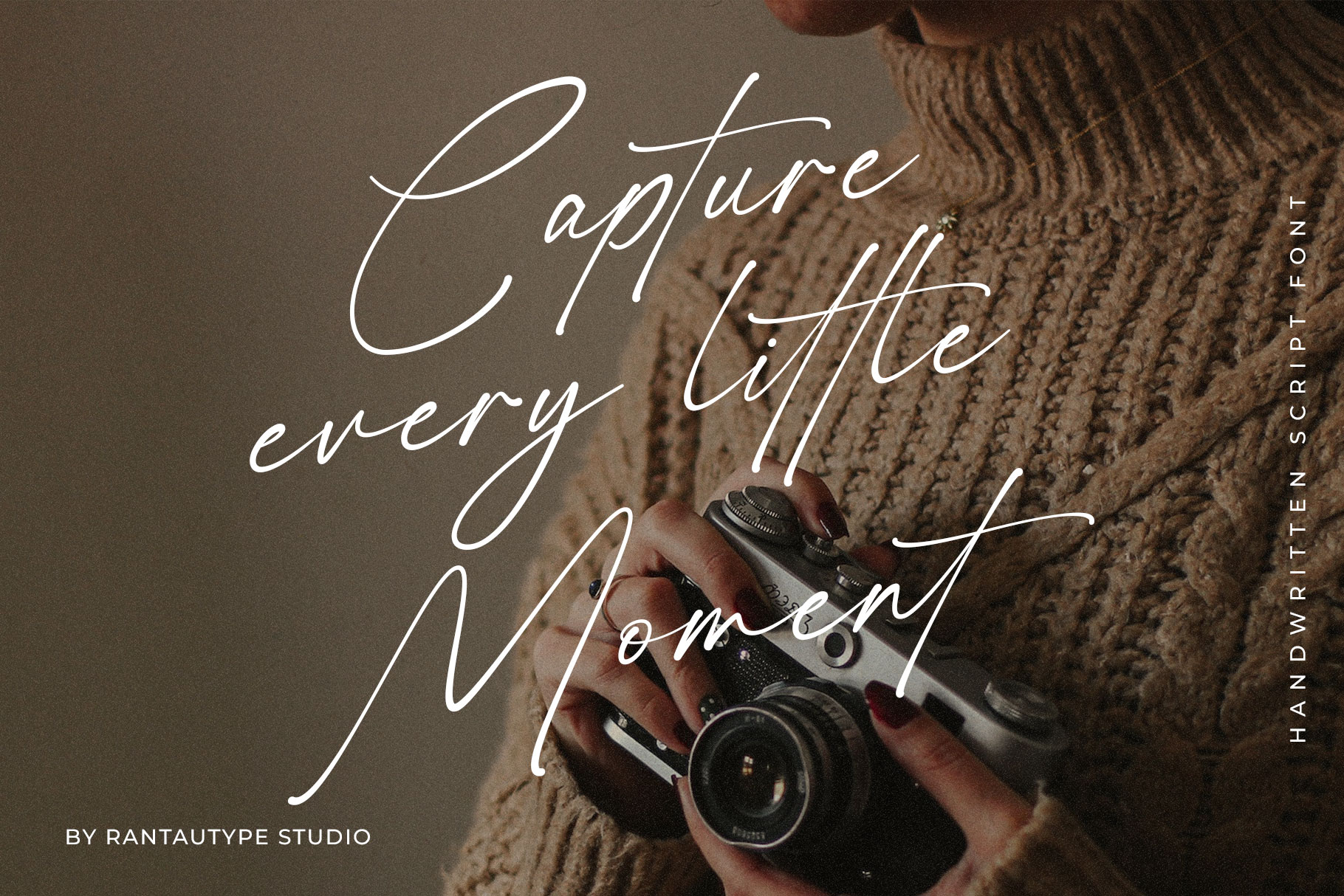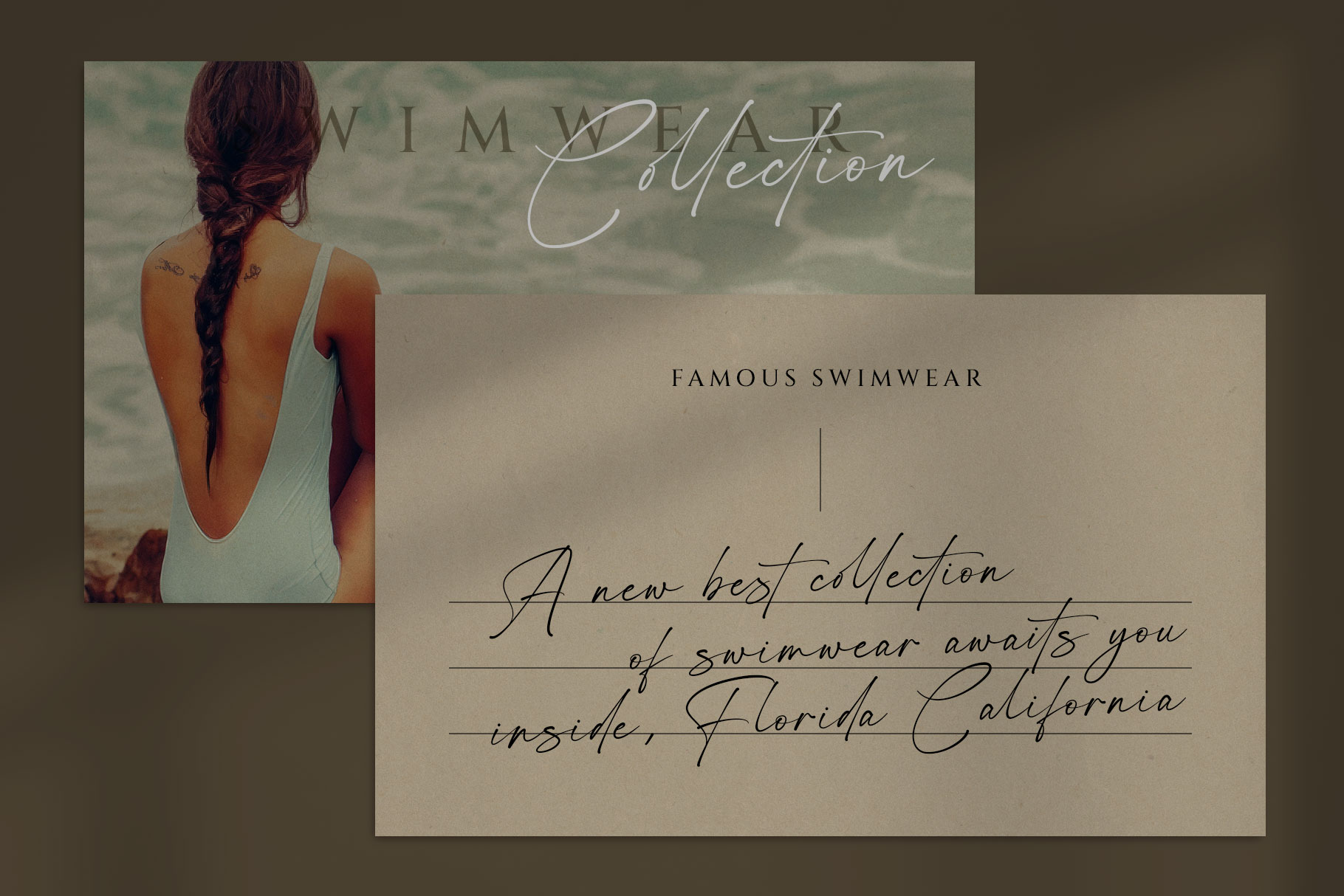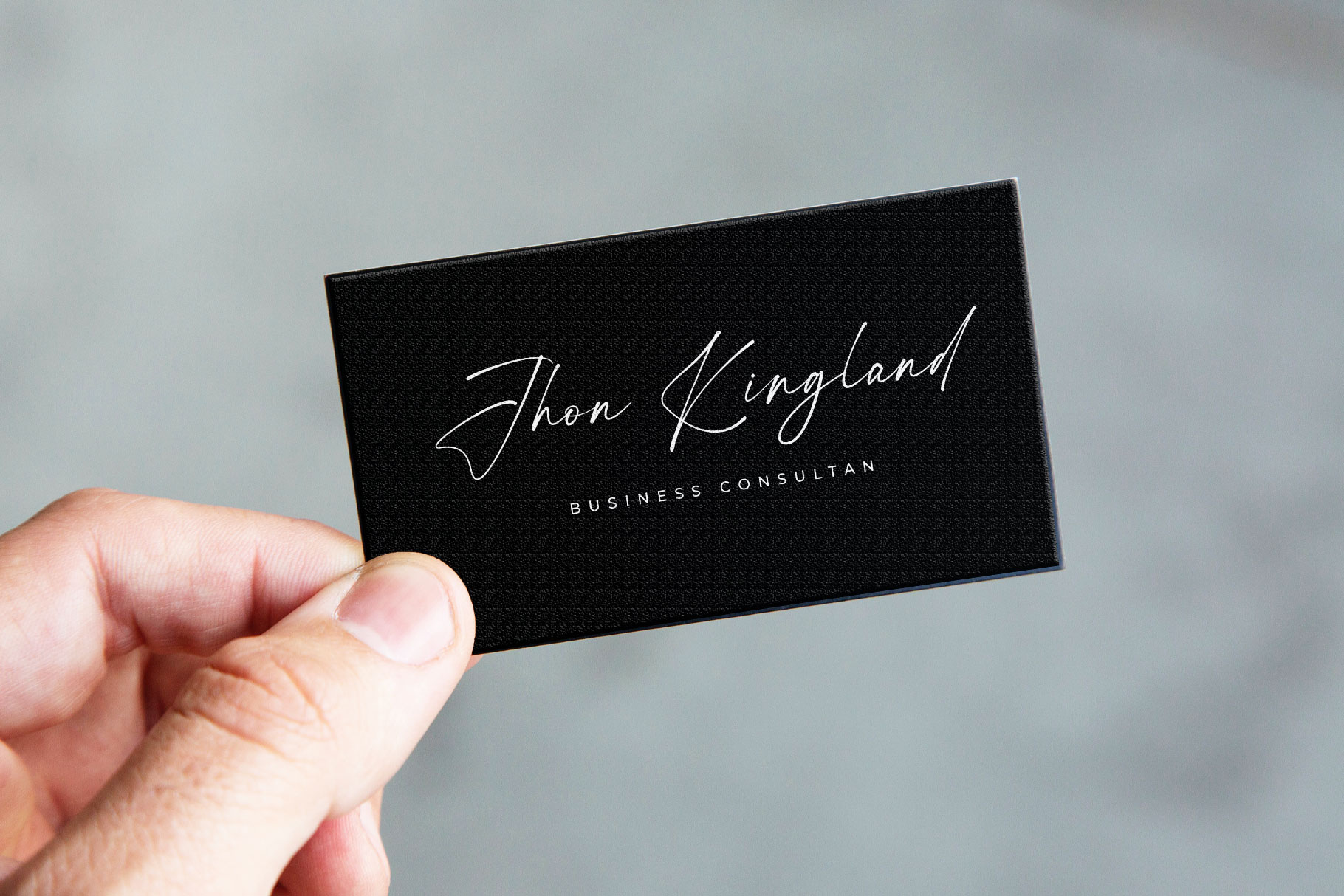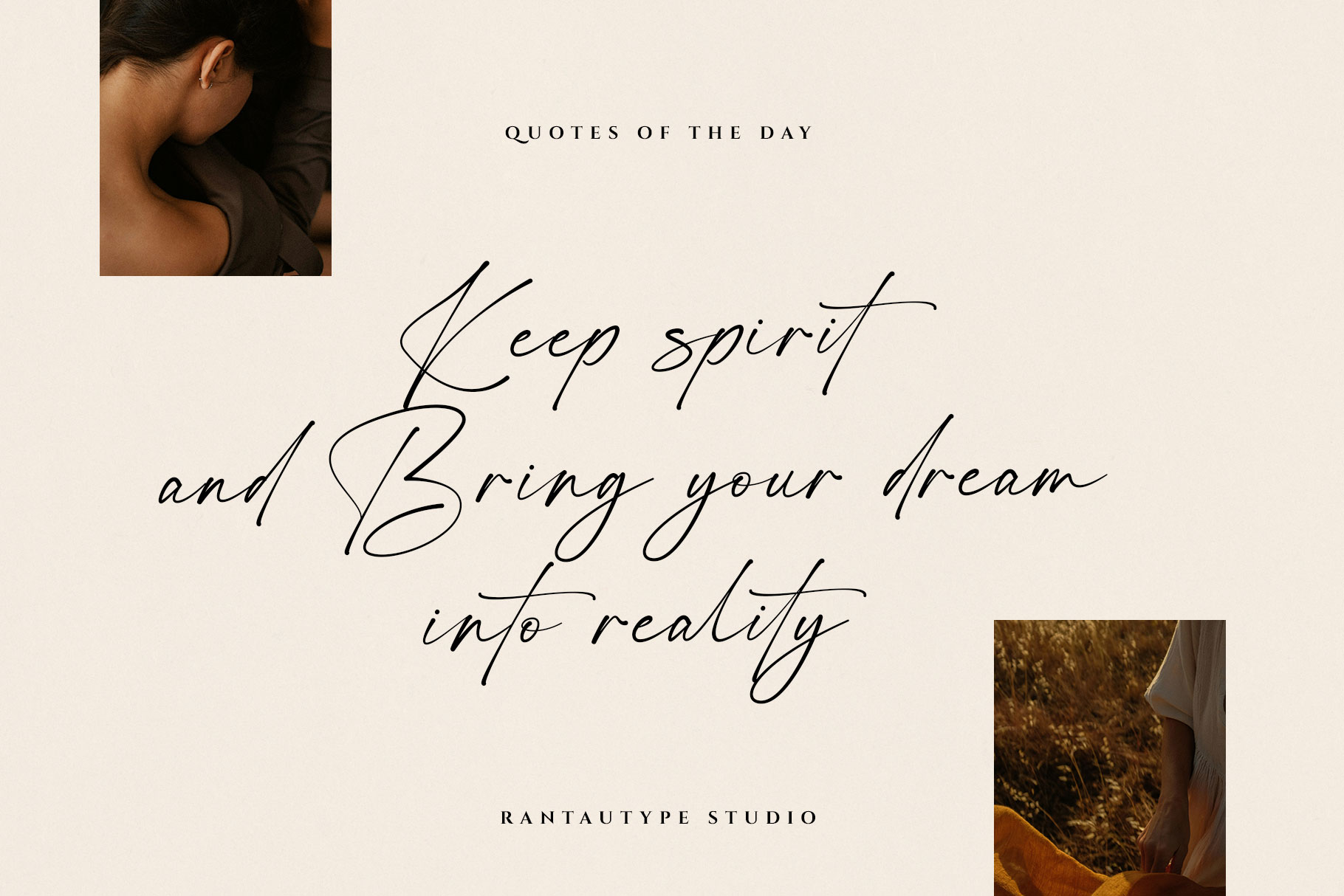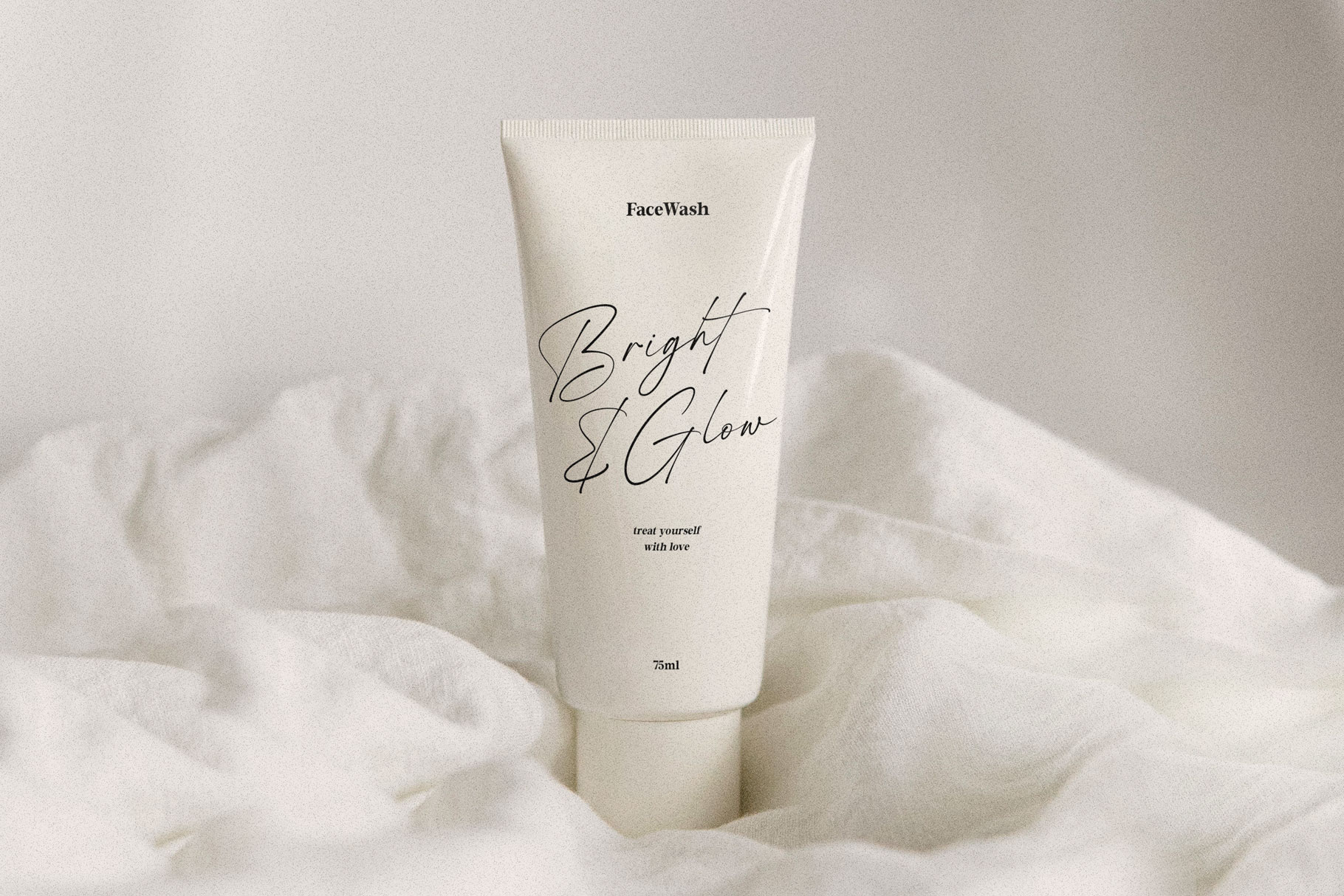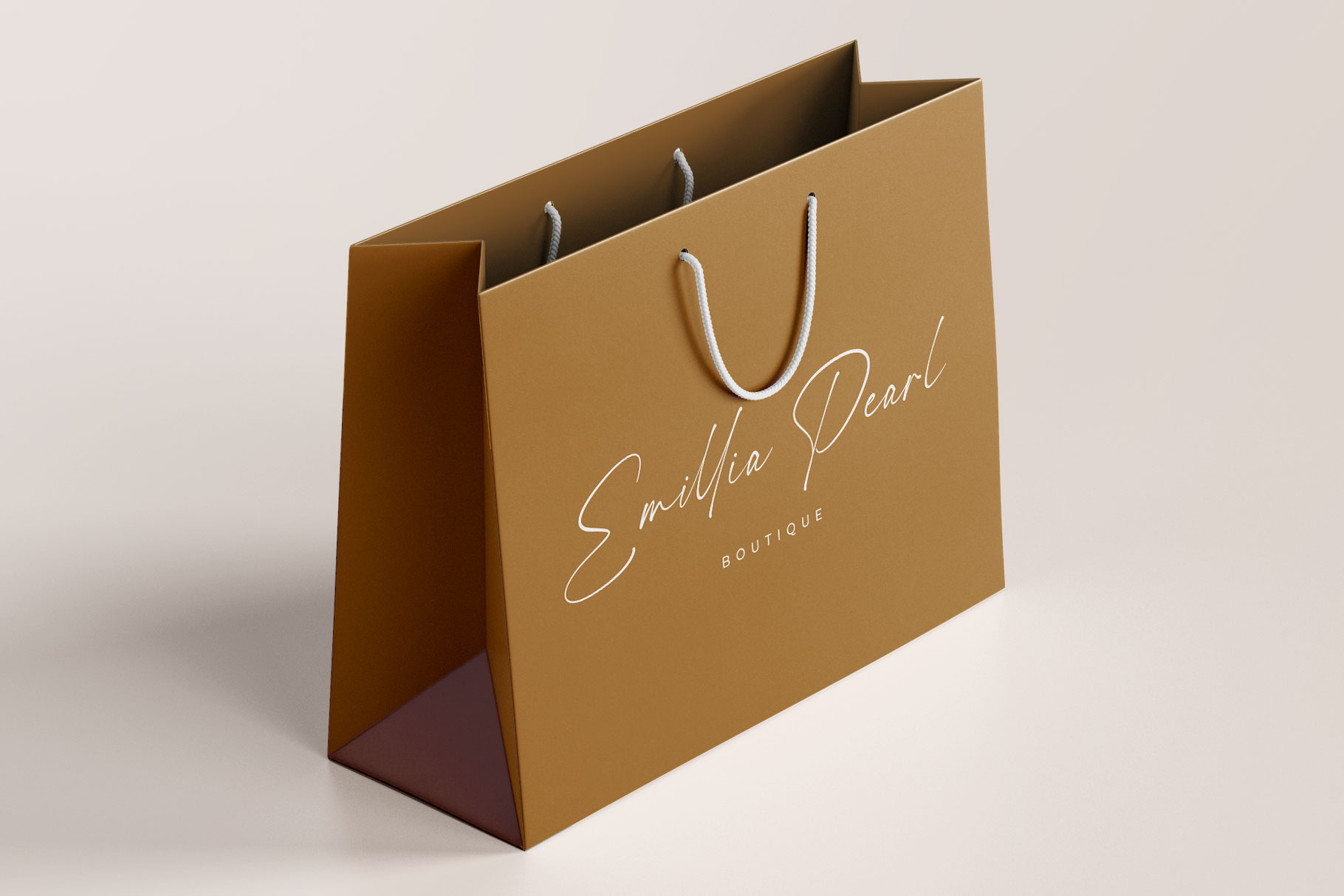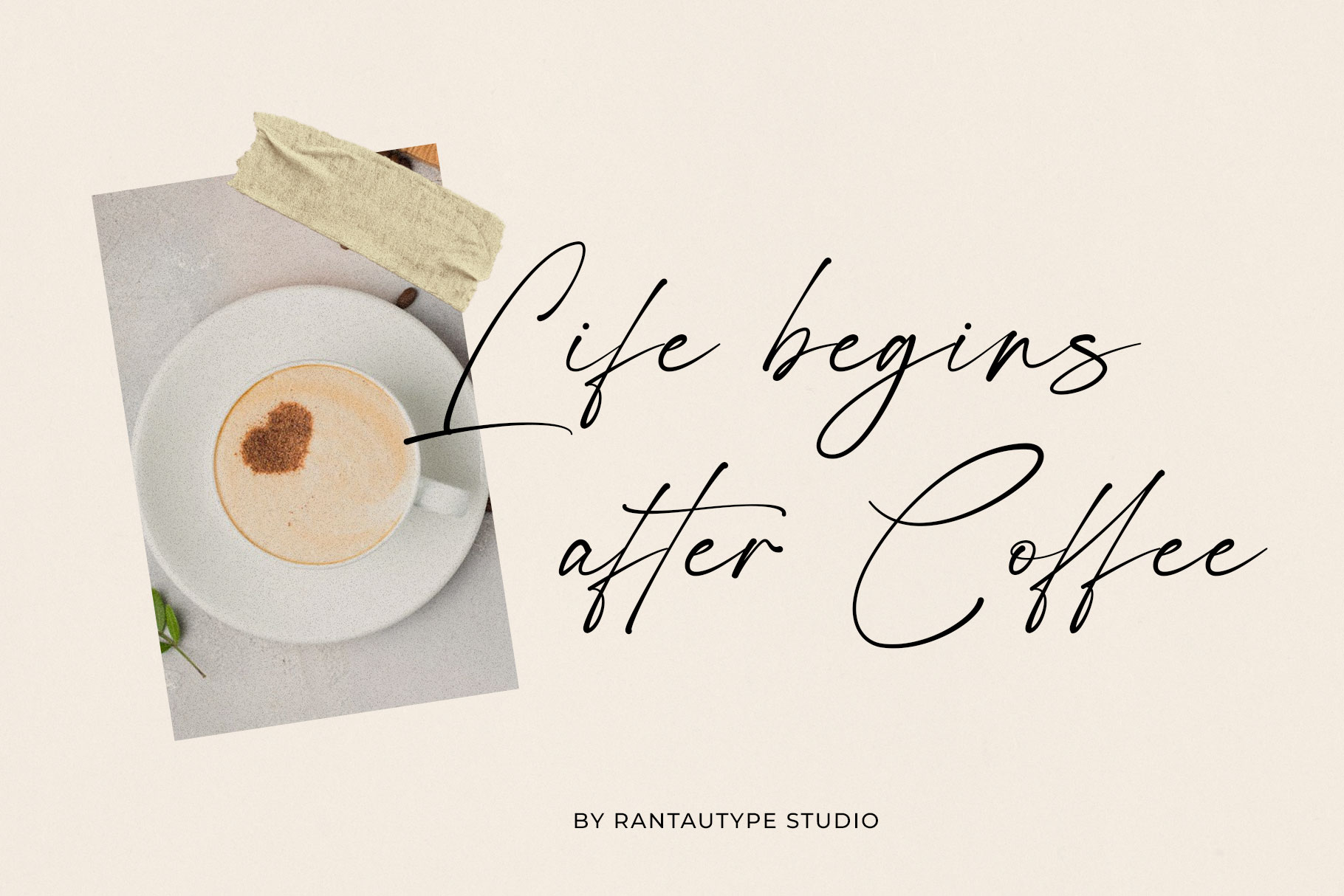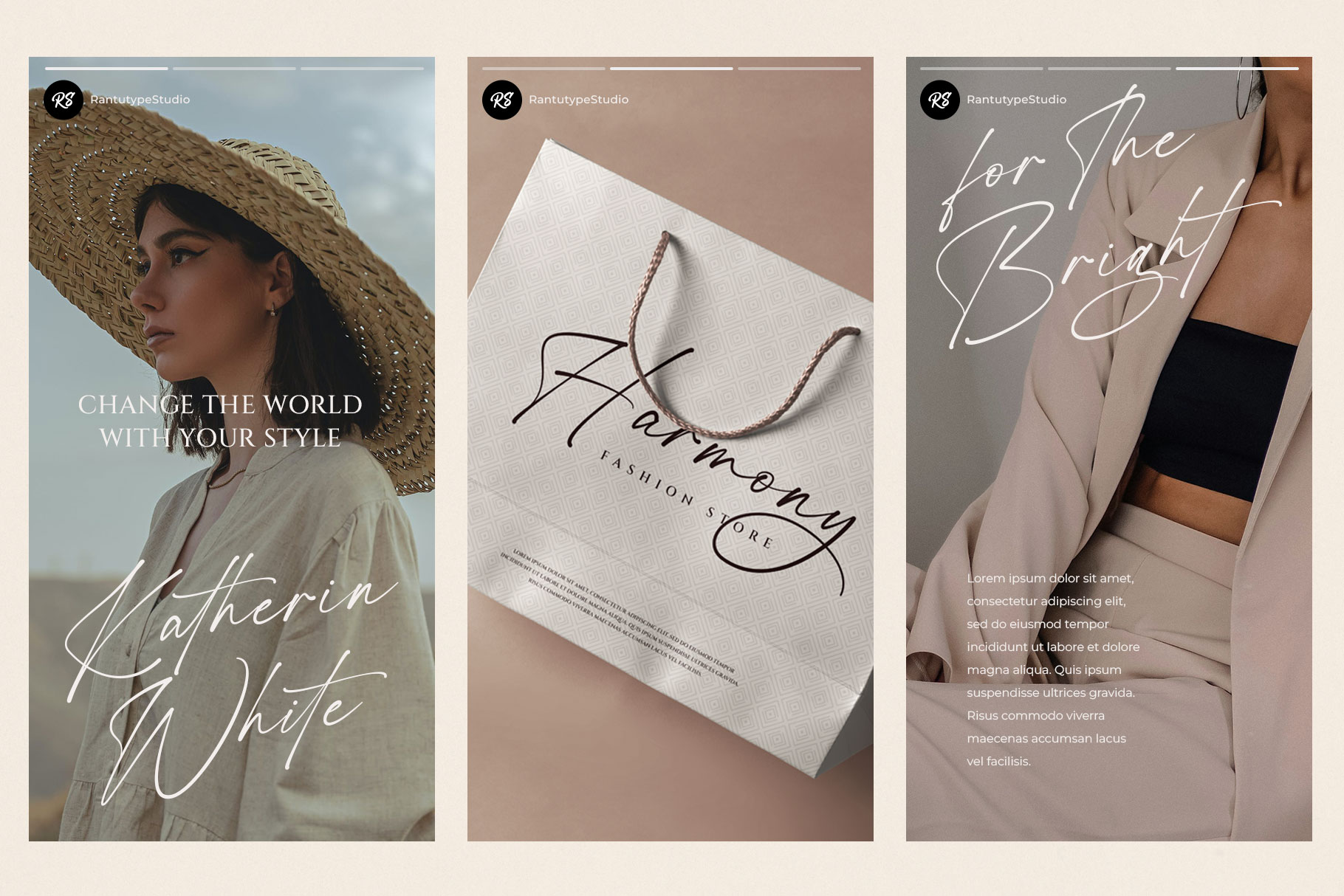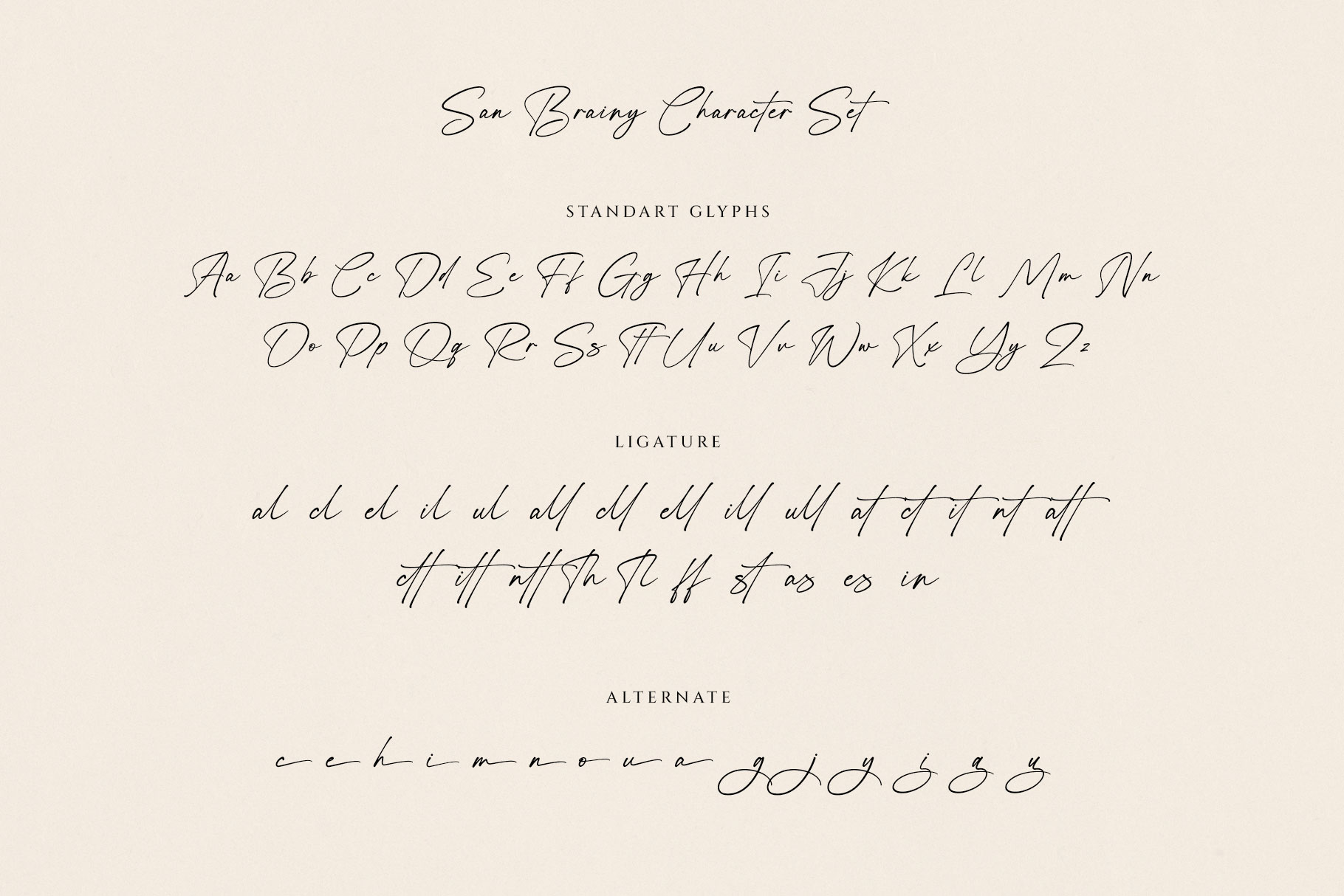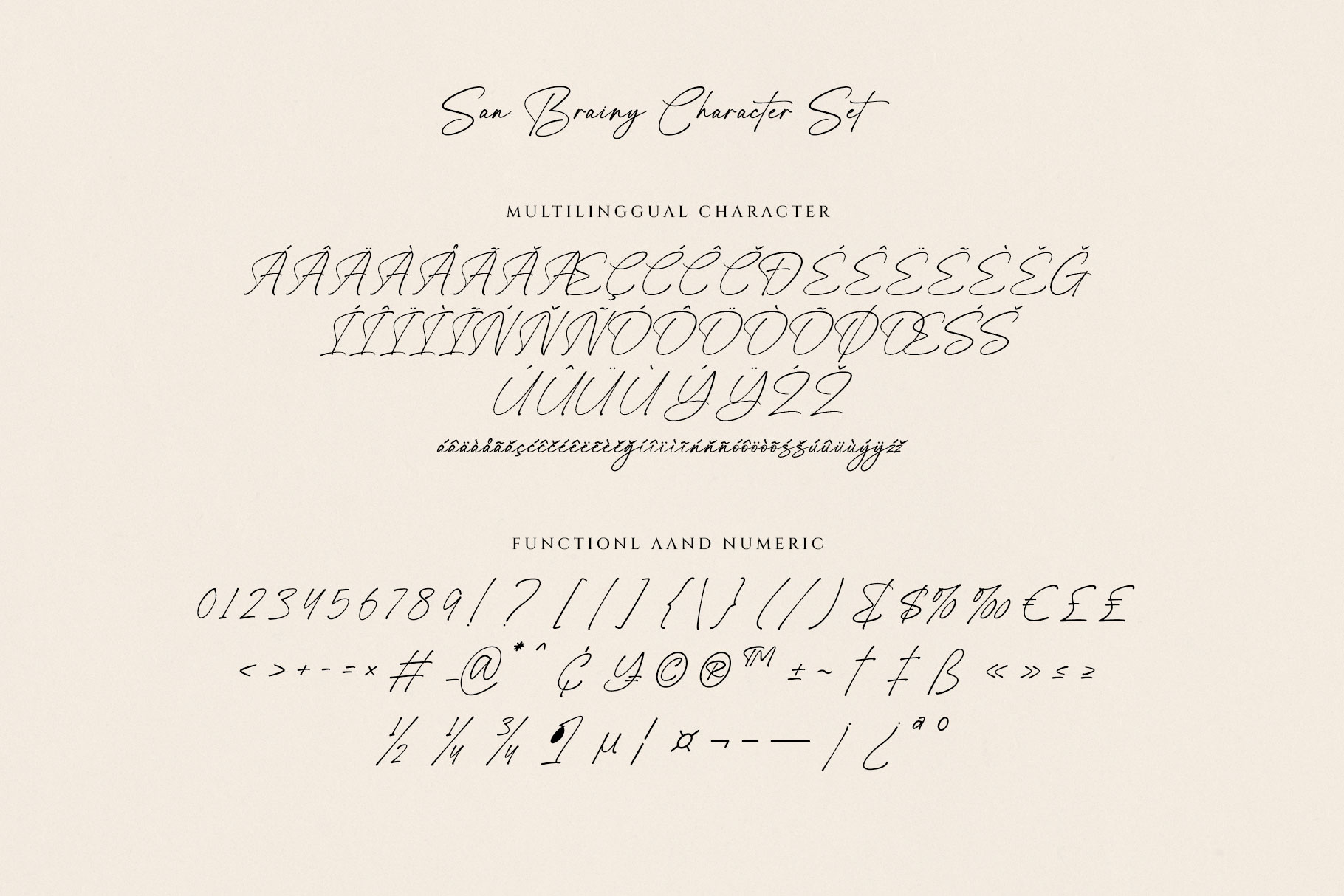
San Brainy Handwritten Script Font
San Brainy is handwritten script font made by rantautype studio. We keep this font look modern, elegant, stylish, eye catch and easy to use. San Brainy is a perfect choice for any creative endeavor, chic, lifestyle design such as logos, title, watermark on photography, cover, branding, display and magazine, wedding event, corporate brand, quotes, album cover, business card, business project, company branding and more project with handwritten taste.